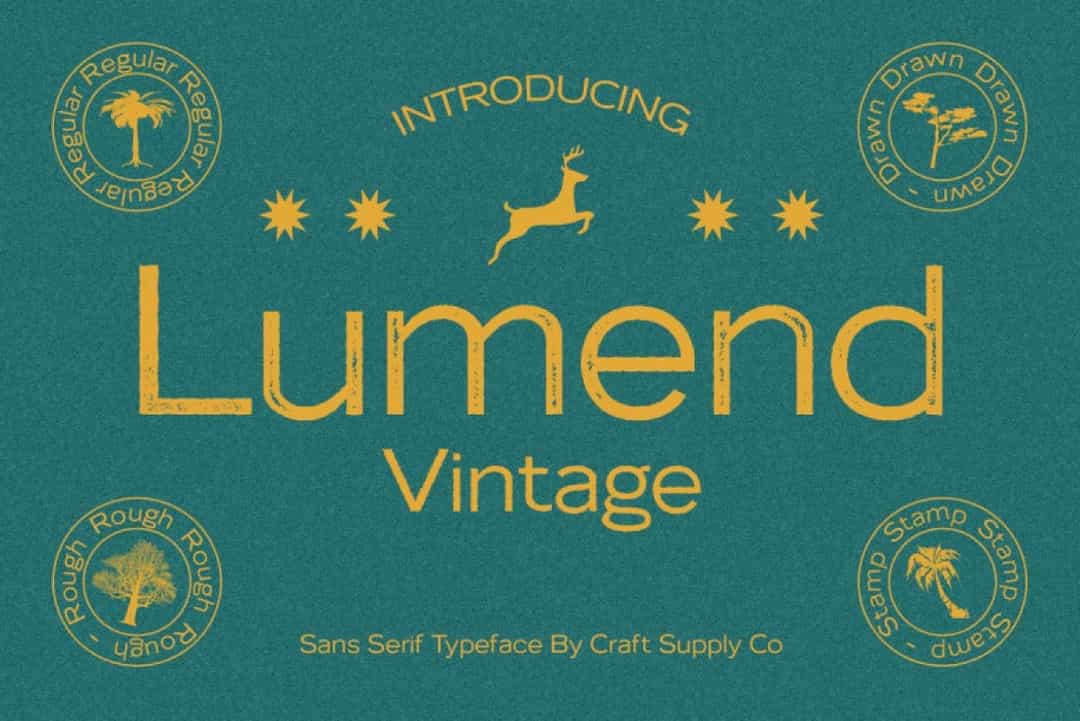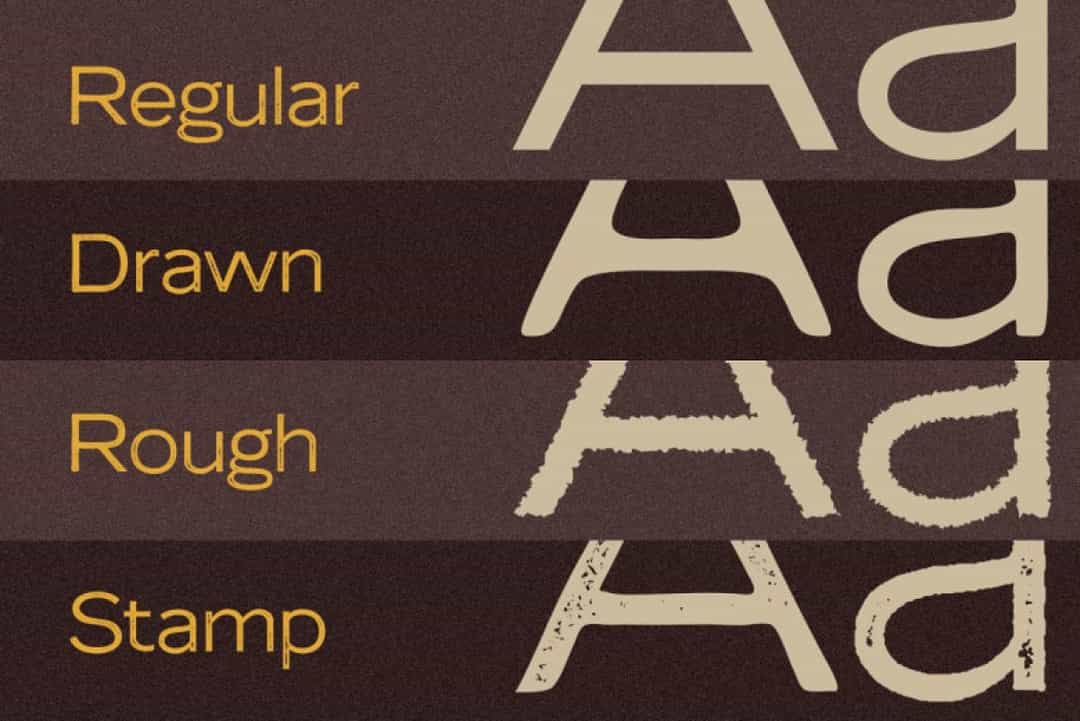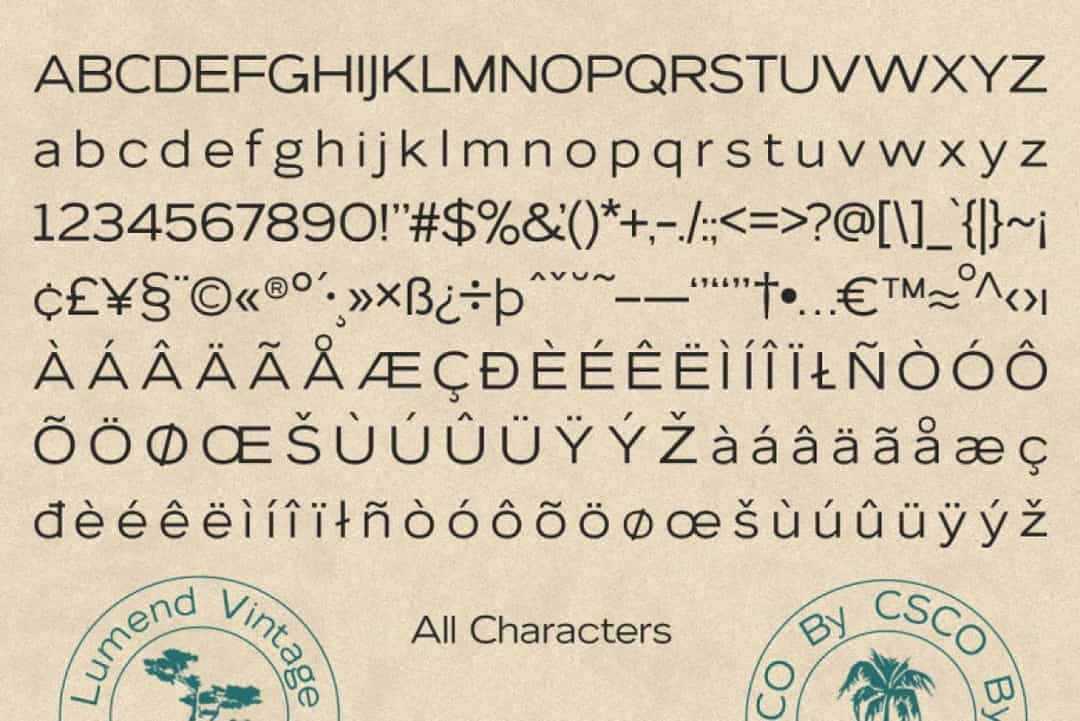
Lumend Vintage Sans Serif Stamp Font. If you are in search of an authentic vintage stamping effect with roughness and hand-drawn style, then look no further. Lumend Vintage captures this essence perfectly by having its stamp-like vintage effect revivifying an olden day! Perfect for display purposes!